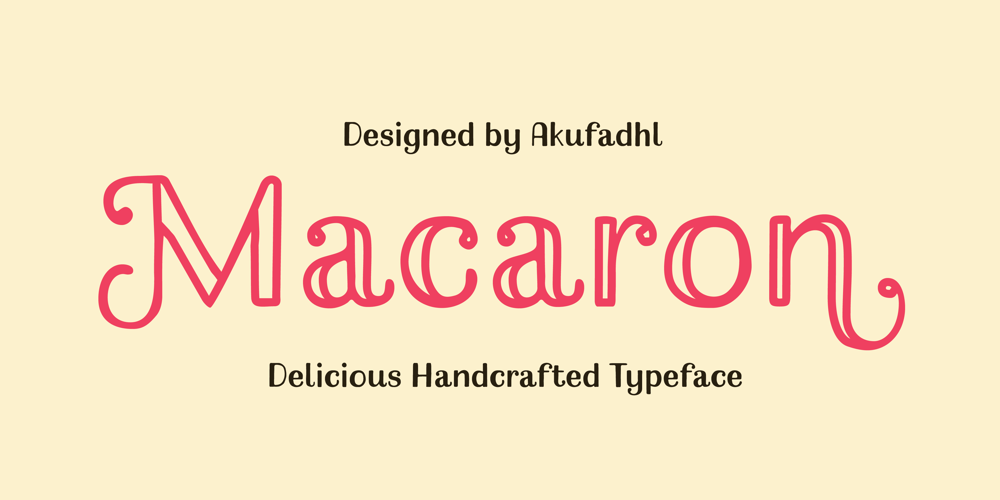
Macaron Font Family was designed by Fadhl Waliy ul Haqq and published by Akufadhl. Macaron contains 2 styles and family package options. Macaron is a lovely, playful handcrafted typeface with inconsistency. It’s designed to suit your homemade products and crafts and is also best for display purposes.